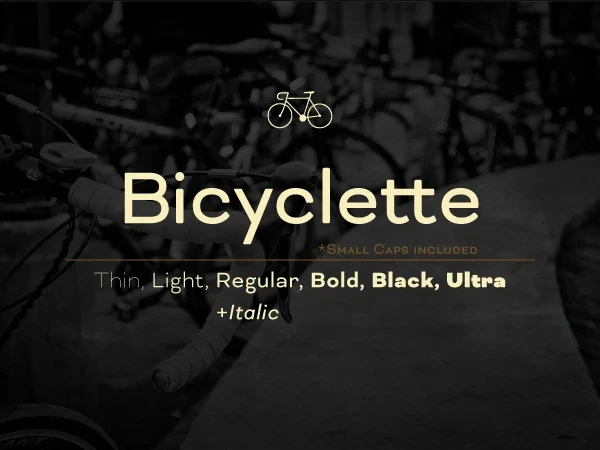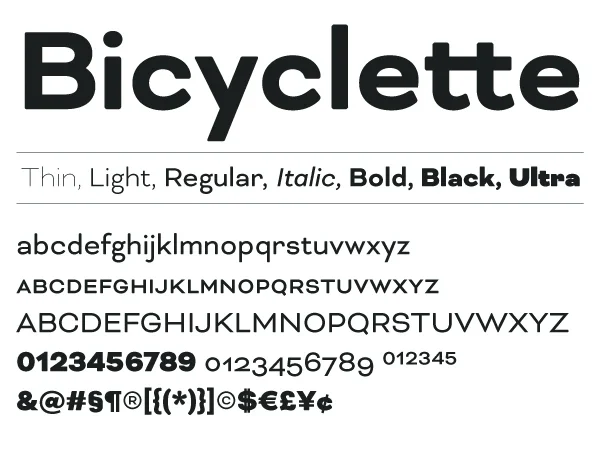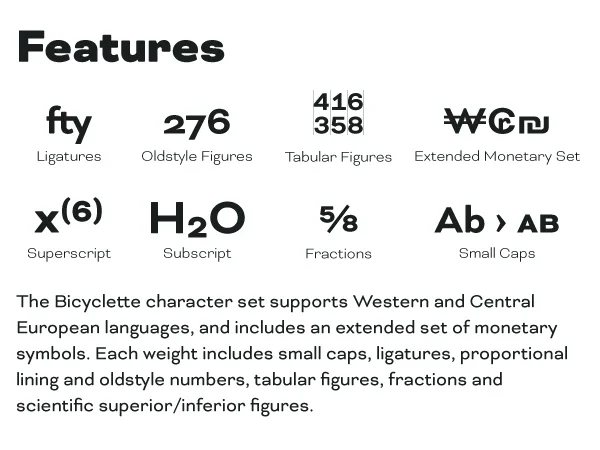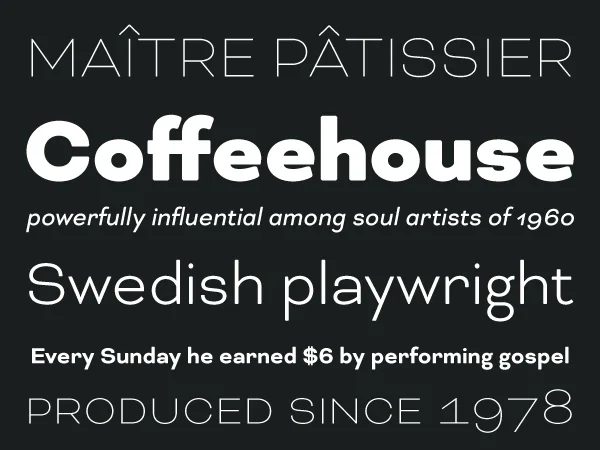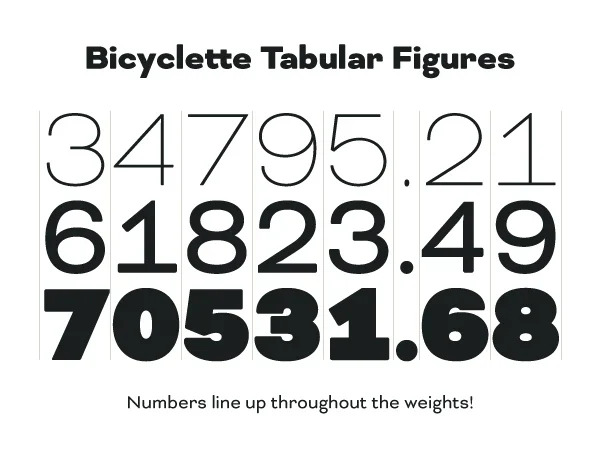
Bicyclette Font
About Bicyclette Font
I’m a typographer and graphic designer who focuses on modern type with clean structure and personality. While creating a visual identity for a tech brand, I needed a font that felt refined but still contemporary. That’s when I found the Bicyclette Font. I came across it while browsing through the Kostic Type Foundry and instantly loved its balance and elegance. I used it on a brand website, working mainly with headlines and supporting body text. It gave the design just the right tone. Confident, clean, and distinct. That’s why I wanted to share this review and my experience using it.
What is Bicyclette Font?
Bicyclette Font is a sans-serif family with strong contrast and modern character. The typeface was designed by Nikola Kostić and published by Kostic Type Foundry. It offers a mix of gentle curves and sharp angles, giving it a look that’s both soft and precise. The wide letters and short lowercase height create a lot of white space between lines, making text feel open and readable.
The name “Bicyclette” represents the font’s structure, carefully balanced and smooth. It features six distinctive weights that give designers flexibility when building typographic hierarchies. From bold headlines to refined captions, it handles both ends of the visual range.
The design includes rounded edges, but not enough to be classified as a rounded font. This small touch softens the type without losing its structure. The font works well across both print and digital media and fits into clean, minimal design projects. If you enjoy Neue-style geometry but want something with more warmth, this is a great option.
Features of the Bicyclette Font
Bicyclette includes a wide character set with support for Western and Central European languages. The Bicyclette Font download comes with full OpenType features, including small caps, ligatures, tabular figures, oldstyle numbers, proportional lining, fractions, and scientific symbols. It’s a complete font package for professionals who want more than just basic letterforms.
Every weight has been designed with precision. The capital letters stand out in headlines, and the lowercase letters stay subtle and neat. The short x-height creates white space between the text lines, improving visual flow and readability. This feature is especially helpful in long-form reading and editorial work.
Rounded but structured edges keep the font feeling smooth and professional. It keeps that technical sans sharpness while adding a softer tone. The font looks great in Photoshop, Illustrator, and other Adobe programs. It installs easily on both desktop and web platforms. Whether you’re using it on a website or in a brand guideline, the format stays clean.
From typographic posters to corporate identity kits, the details in Bicyclette help elevate any layout. It balances sophistication and charm with clarity and control.
Where can you use this font?
Bicyclette Font works well in branding, editorial, UI, and clean web layouts. It’s designed for people who care about typography and want a modern look that still feels personal. If your project calls for a blend of structure and elegance, this font delivers that balance.
Use it in logos, website headers, or product packaging. It’s perfect for design projects where space, shape, and text must align visually. Thanks to its six weights and smart layout features, you can switch from loud display styles to light body text without changing fonts.
It pairs easily with graphic elements and fits well inside clean grid systems. The font was made for digital but still looks polished in print. From mobile apps to minimalist editorial layouts, it scales beautifully. You can even explore fonts similar to Bicyclette if you’re building a wider font collection.
Whether you’re creating for fashion, tech, or visual identity systems, Bicyclette feels like a solid and refined choice. It offers enough contrast to be visually interesting without overpowering your layout.